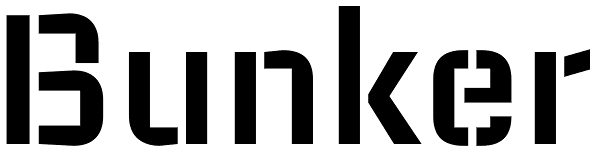
Bunker
A versatile stencil type family with lowercase characters and a extensive character set. Bunker has four styles, and all of them are interchangeable, which means that a character occupies the same space (advance-width) in all of the fonts. It also...
Bunker Didone
Bunker
Bunker Slab
Bunker Super